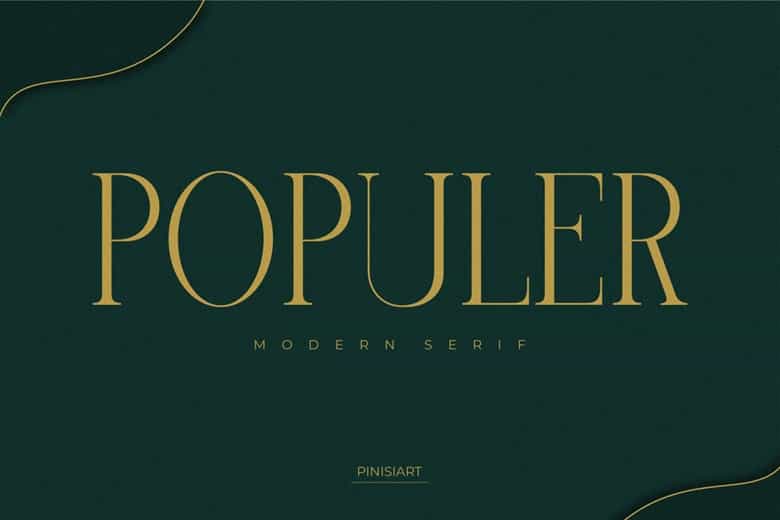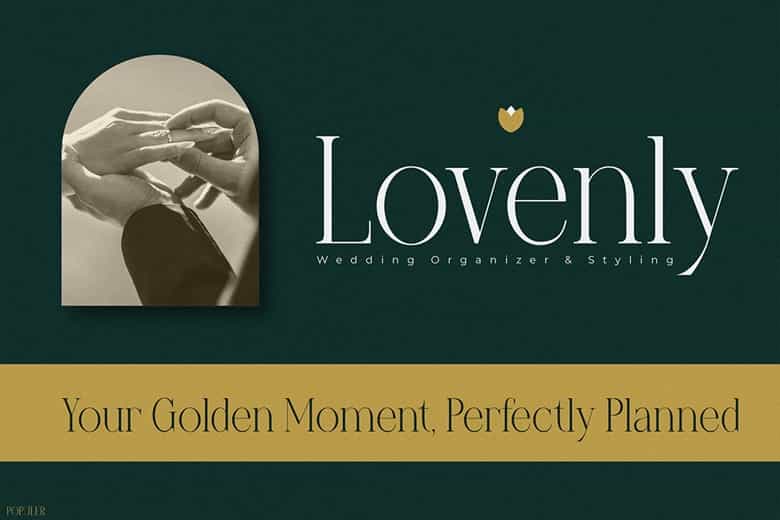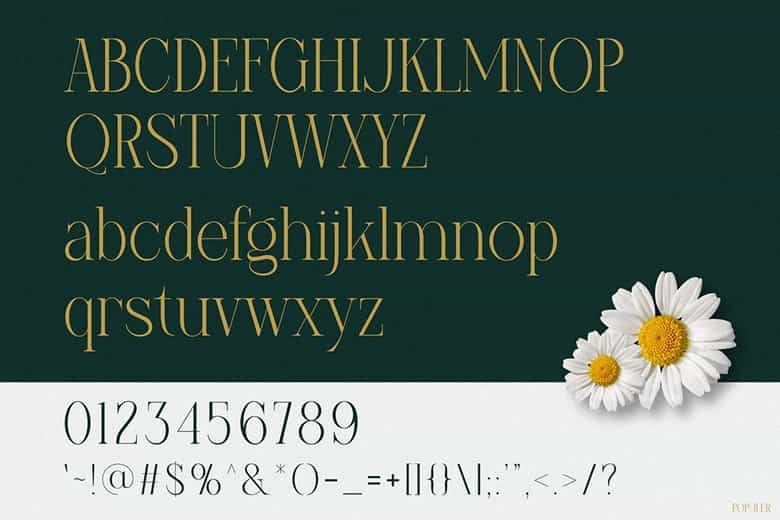
Populer will lend your design a voice that is daring and very sophisticated and trendsetting. It is a beautiful serif typeface with tall letters in confident form and flowing lines and high-standard proportions. At first sight, Populer ups your layout with the old world appealing look that cuts through and catches your eye without screaming. Furthermore, it combines down-to-earth precision with traditional typographic hints, which is why it is the best instrument to tell stories in the modern world, particularly in social media.